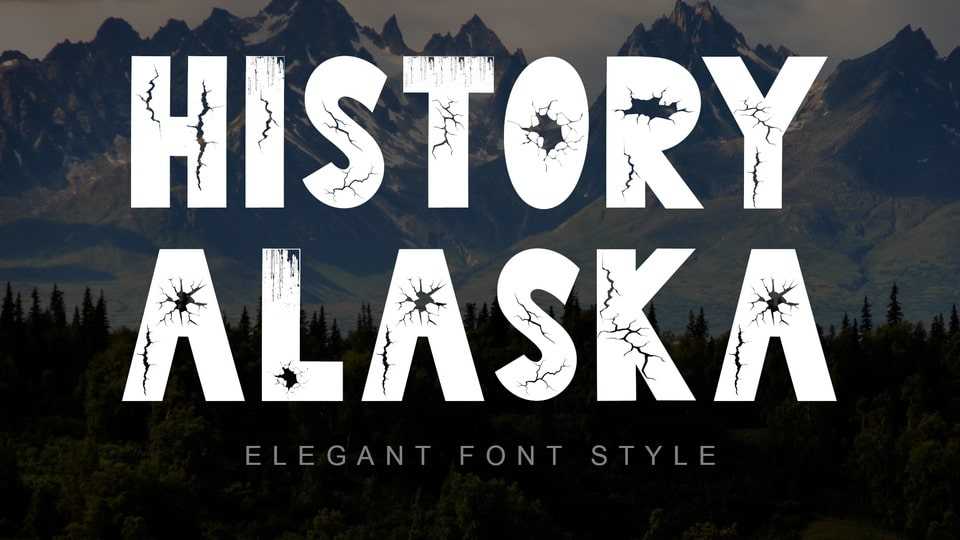
Download History Alaska font, an elegant and unique display typeface. It is very suitable for use for movie titles, action movies, magazine titles, book titles, logos.